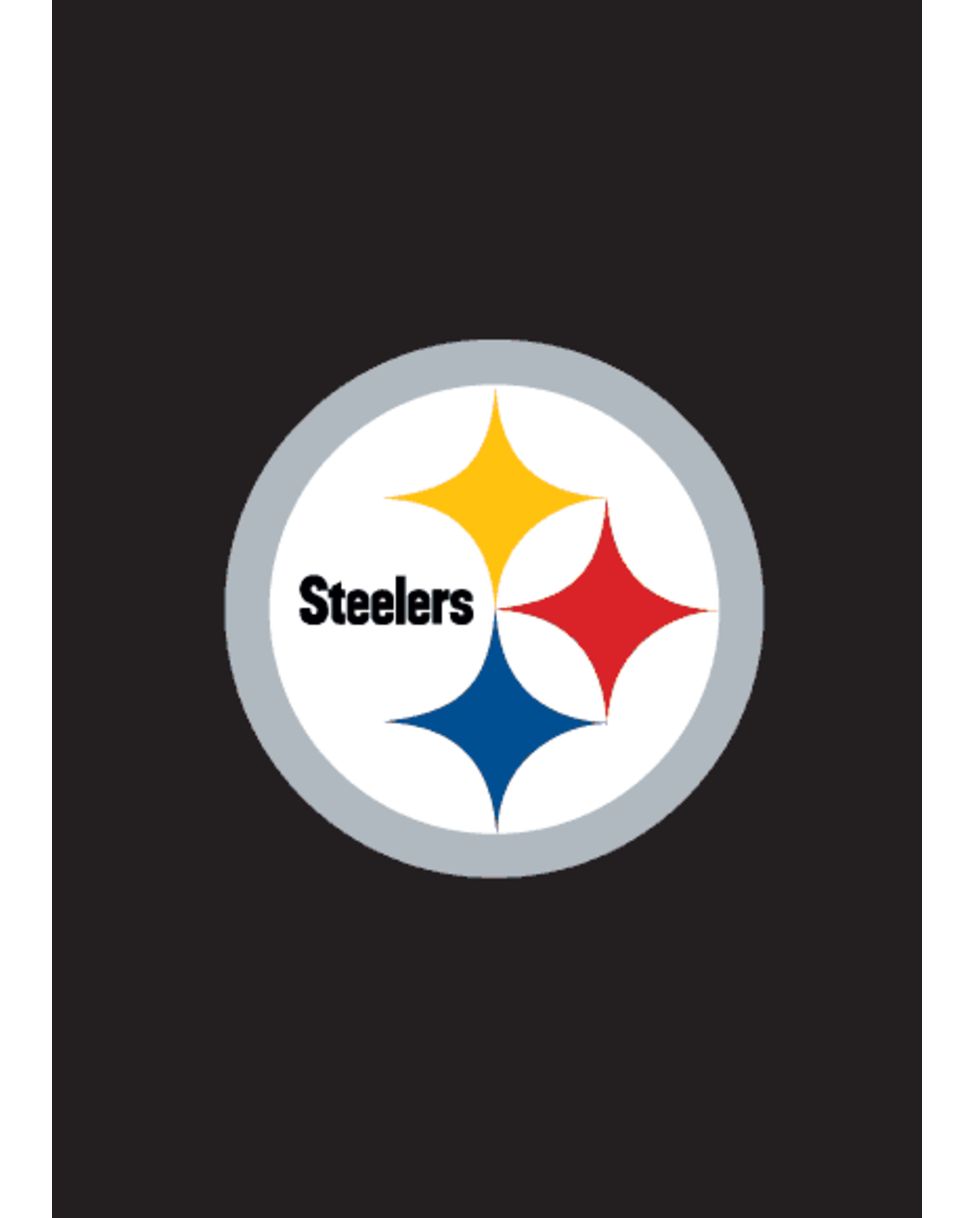
The pittsburgh steelers logo jpg format can be found below. The font used for the logo of steelers is gunplay font.
Fonts Logo Pittsburgh Steelers Logo Font
Gunplay font is a truetype with fancy style font by designer ray larabie for typodermic fonts.
What is the font used for the pittsburgh steelers logo. It founded in 1933 and it becomes the oldest franchise in the american football conference. A font based on the pittsburgh steelers logo. The font used for pittsburgh steelers logo is very similar to arial condensed bold, which is a grotesque sans serif font designed by patricia saunders & robin nicholas and published by monotype.
Moreover, each of the weight has 204 glyphs at the side of 1000 units according to em. The steelers logo is also too much famous just like its team. What font is used in the pittsburgh steelers' logo?
The font used for the logo of steelers is gunplay font. The steelers is basically an american based football team located in pittsburgh, pennsylvania. This fancy font family is designed by a famous font designer ray larabie for typodermic fonts.
The official subreddit of the pittsburgh steelers football team. Any help would be greatly appreciated!! The font is futura condensed.
This steelers font family comes in two different styles including 3d and rg. The closest font you can get for the pittsburgh steelers logo is arial font. Well, this is pretty much the story behind the placement of the logo on pittsburg steelers helmets!
Gunplay is a font that is used for the logo of the steelers football team. Steelers logo font steelers logo is featured a gunplay font from typodermic fonts family. What font is used for the pittsburgh steelers jersey numbers?
This fancy font family is designed by a What's the font used for pittsburgh steelers logo?